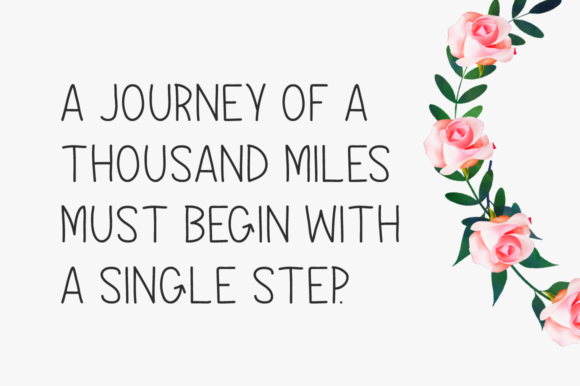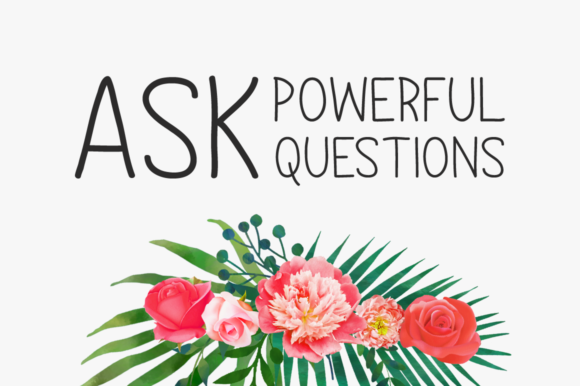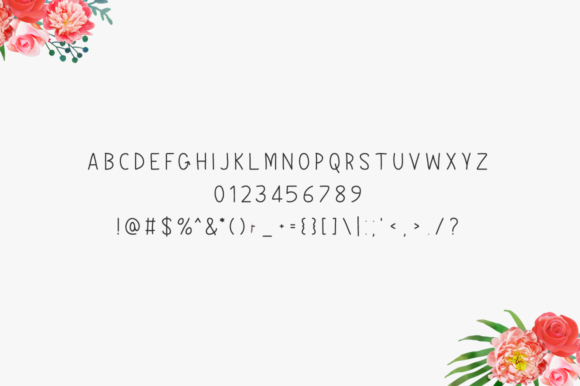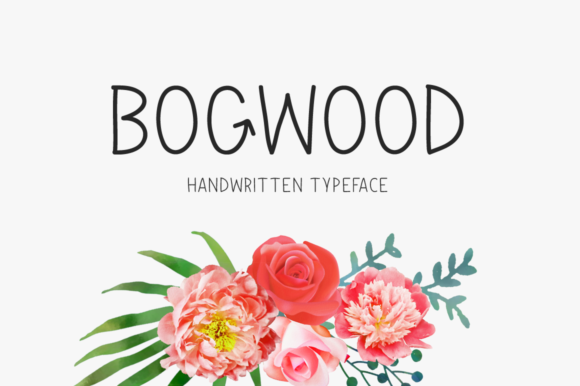
The Bogwood Font: A Charming Display Font for Creative Projects
A Personal Review of Bogwood Font
So, what makes Bogwood so special? Here are a few things I absolutely love about this font:
- ✨ Playful characters that add a touch of whimsy to any design project
- ✅ Simple style that’s easy to read and works well in a variety of contexts
- 🔥 Highly versatile and can be used for a range of projects, from crafting and DIY to branding and advertising
Of course, no font is perfect, and Bogwood is no exception. Here are a few small quirks to keep in mind:
- 🤔 Limited language support, so it may not be the best choice for projects that require a wide range of languages
- ⚠️ Some users have reported issues with kerning, so be sure to adjust as needed
The Story Behind Bogwood Font
According to legend, the Bogwood font was created by a team of designers who wanted to capture the essence of playful, handmade crafts. They drew inspiration from traditional woodblock printing and infused it with a modern, digital twist. The result is a font that’s both charming and versatile.
| Font Name | Bogwood Font |
| Q: What is the Bogwood font best used for? | A: Bogwood is perfect for creative projects, such as crafting, DIY, and handmade goods. It’s also great for branding and advertising projects that require a playful touch. |
| Q: Does Bogwood support OpenType features? | A: Yes, Bogwood supports OpenType features, including glyphs and stylistic alternates. |